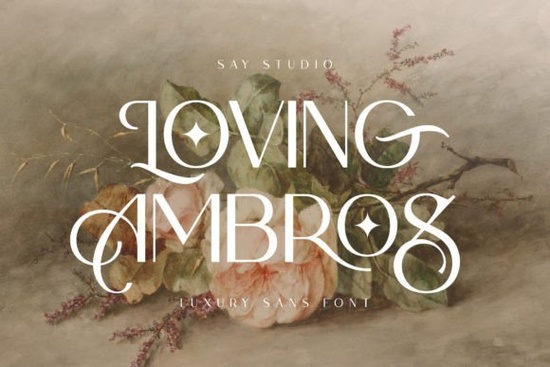
When it comes to adding a touch of elegance and sophistication to your designs, the Loving Ambros Font is a fantastic choice. This luxurious and beautiful serif font is perfect for headlines, titles, and a variety of design projects. Whether you're working on branding, editorial design, or even wedding invitations, Loving Ambros can bring a unique and refined look to your work.
Why Choose Loving Ambros for Your Design Projects?
Loving Ambros is not just another serif font; it's a carefully crafted typeface that brings a sense of luxury and beauty to any project. Its elegant lines and well-balanced forms make it ideal for creating eye-catching headlines and titles. Whether you're designing for print or digital media, this font can help you achieve a high-end, professional look.
Perfect for Headlines and Titles
One of the standout features of Loving Ambros is its versatility in creating impactful headlines and titles. The font's bold and clear characters ensure that your text stands out, making it an excellent choice for posters, magazines, and websites. If you need a font that commands attention without being overbearing, Loving Ambros is a great option.
Ideal for Branding and Logotypes
Branding is all about making a lasting impression, and the right font can make a significant difference. Loving Ambros offers a blend of classic and modern elements, making it suitable for a wide range of branding projects. Whether you're designing a logo, packaging, or marketing materials, this font can add a touch of elegance and professionalism to your brand.
Enhance Your Editorial Designs
Editorial design requires fonts that are both stylish and readable. Loving Ambros strikes the perfect balance with its clean, legible characters and sophisticated style. Use it for magazine headers, article titles, and other editorial elements to create a polished and cohesive look. For more options, you might also want to explore The Stripes Editorial Font, which offers a similar level of refinement.
Vintage and Modern Aesthetics
Loving Ambros is not limited to just one style. It can seamlessly fit into both vintage and modern design aesthetics. For a vintage feel, pair it with subtle textures and muted colors. For a more contemporary look, use it with bold, vibrant colors and minimalistic layouts. This flexibility makes it a versatile tool for designers looking to create a wide range of styles.
Use in Social Media and Websites
In the digital age, having a font that looks great on screens is essential. Loving Ambros is optimized for web use, making it perfect for social media quotes, website headers, and other online content. Its readability and elegance can help your posts and pages stand out, engaging your audience more effectively. For more web-friendly fonts, consider Kind Avenue Font.
Wedding and Event Invitations
Weddings and special events call for fonts that exude elegance and charm. Loving Ambros is an excellent choice for creating beautiful and memorable invitations. Its graceful lines and classic style can set the perfect tone for your event, whether it's a formal wedding or a more casual gathering. For a different but equally elegant option, you might also like Sage Averal Font.
Print-on-Demand and Small Business Applications
For print-on-demand sellers and small businesses, the right font can make a big difference in product appeal. Loving Ambros can be used on a variety of products, from t-shirts and mugs to greeting cards and stationery. Its versatility and high-quality design can help you create products that stand out in the market. Another great font for these applications is Standard Typewriter Font.
Practical Tips for Using Loving Ambros
- Pair with Complementary Fonts: To create a balanced and visually appealing design, pair Loving Ambros with complementary sans-serif fonts for body text.
- Test Readability: Before finalizing your design, test the readability of Loving Ambros at different sizes and on various backgrounds to ensure it works well in all contexts.
- Experiment with Colors: Try using different color schemes to see how Loving Ambros can enhance the overall aesthetic of your design. Bold, rich colors can complement its luxurious feel.
By following these tips, you can make the most of the Loving Ambros Font in your creative projects. Whether you're a designer, crafter, or small business owner, this font can help you achieve a sophisticated and elegant look that sets your work apart.